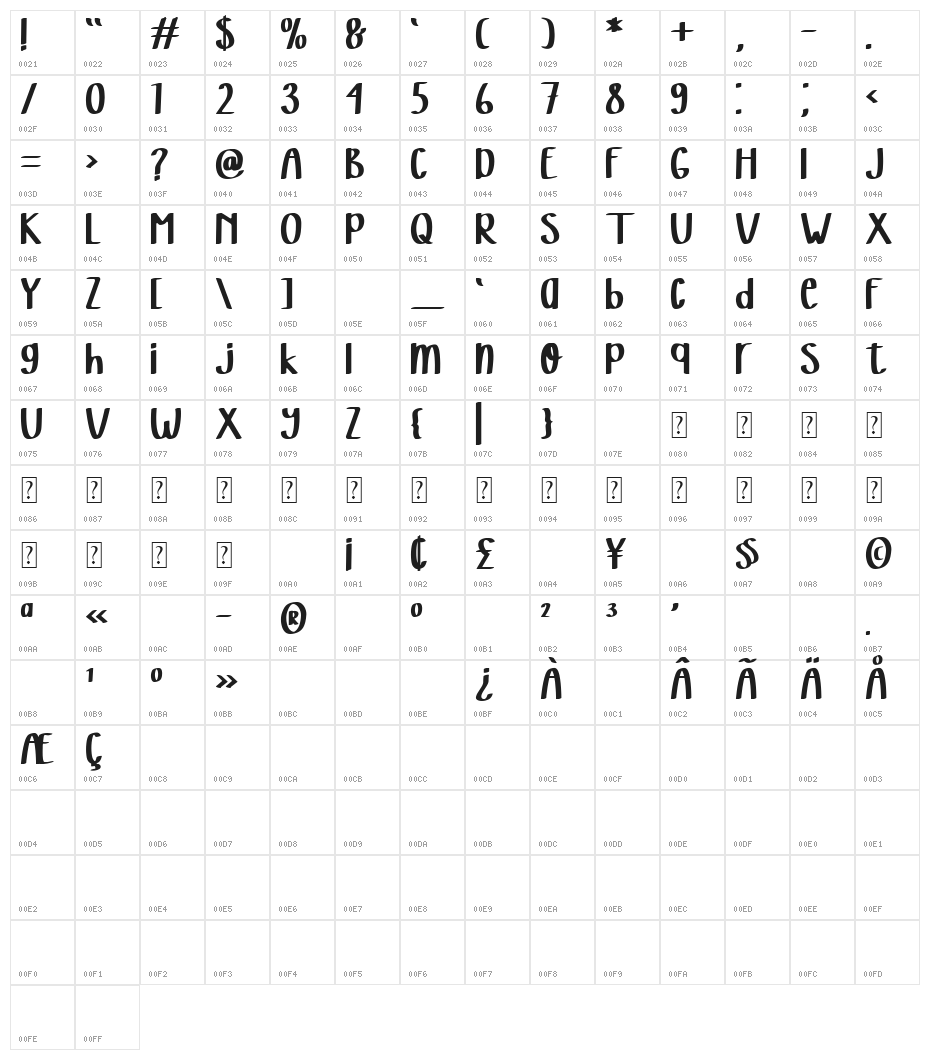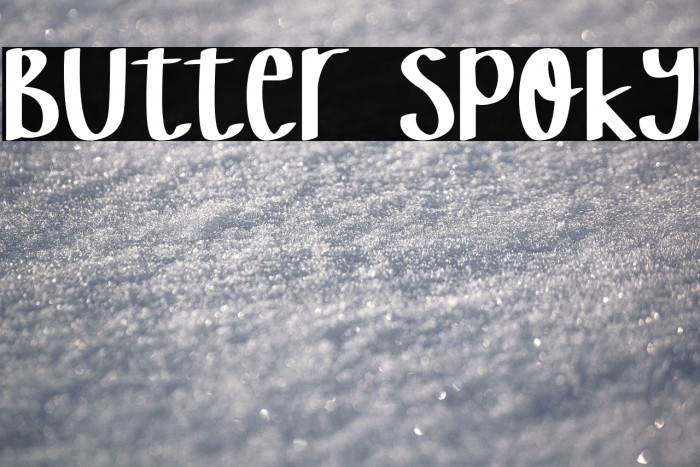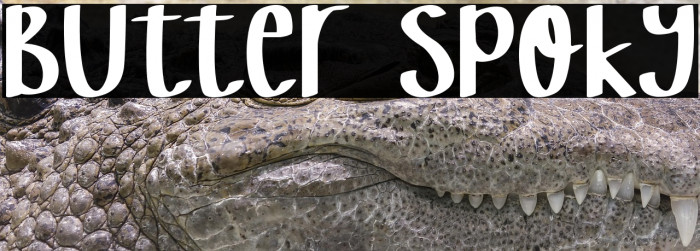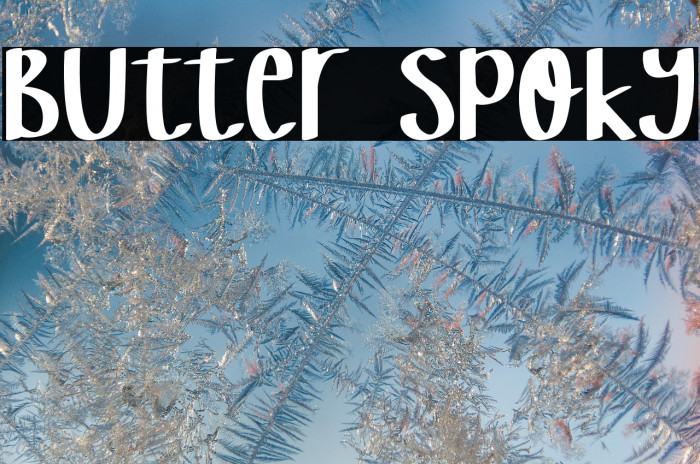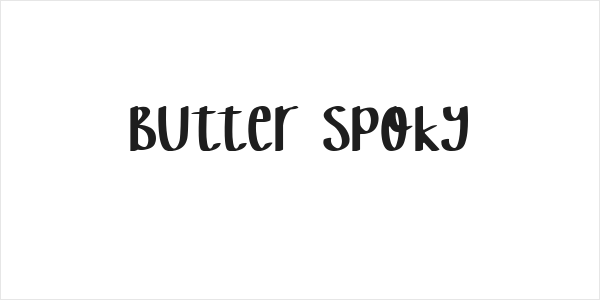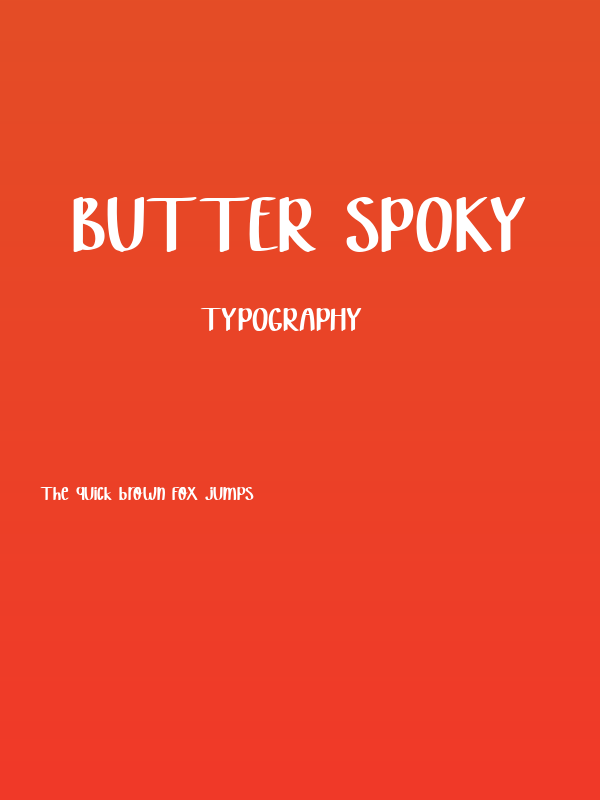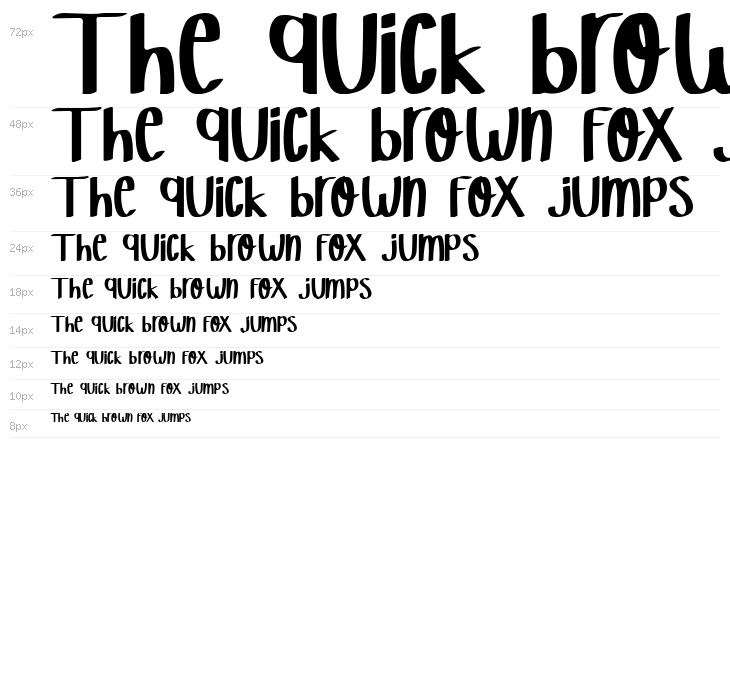
Butter Spoky Font
Butter Spoky Description
This font features a playful and whimsical style with a bold and rounded appearance. The characters are slightly irregular, giving it a hand-drawn feel that adds a touch of personality and charm. The uppercase letters are tall and narrow, while the lowercase letters maintain a consistent height, creating a cohesive look. The numbers and special characters follow the same playful design, making it suitable for creative and fun projects. The strokes are thick, providing a strong visual impact, and the overall design is both approachable and lively.